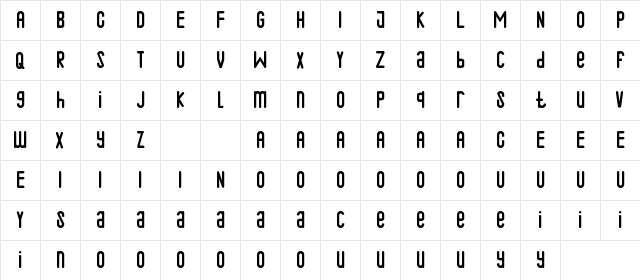
Qalin Demo Regular
| Foundry | Edric Studio |
| Designer | Renata Insan C & Aghnia Nurul Yasmine |
Design Context for Qalin Demo Typeface
Qalin Demo offers clean, dependable letterforms without strong stylistic allegiance, making it a practical choice for designers who need flexibility.